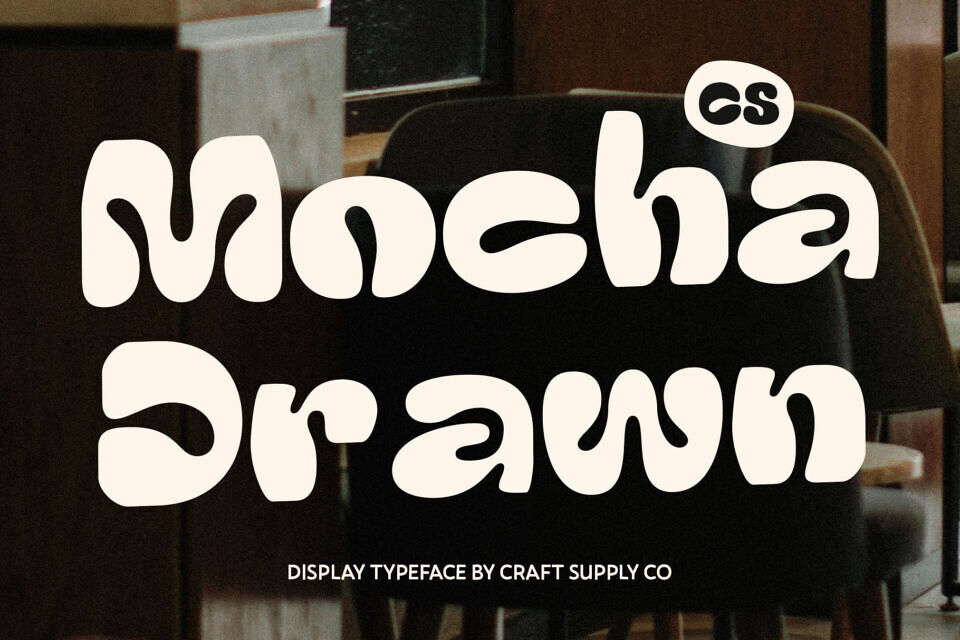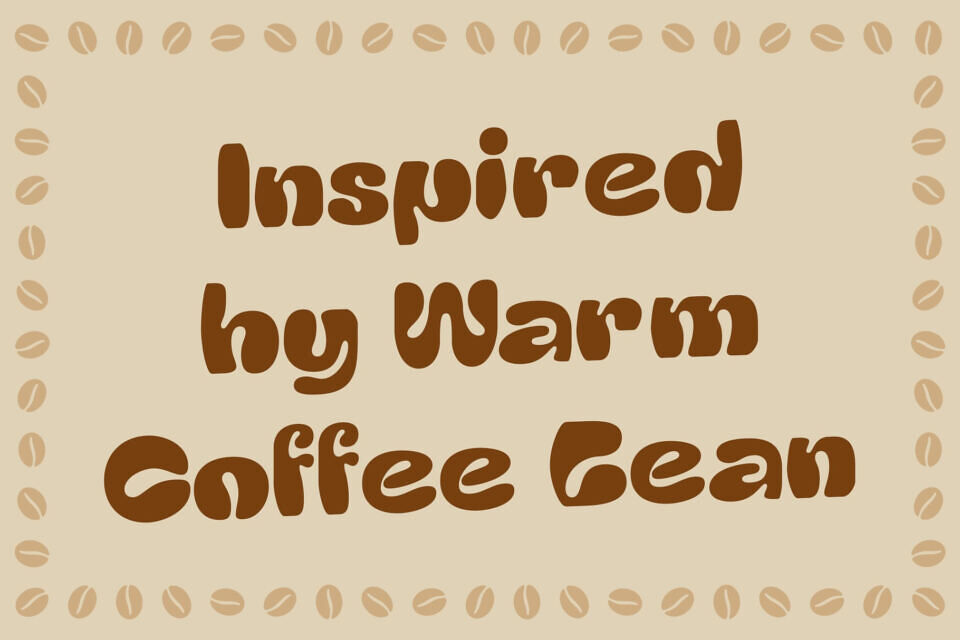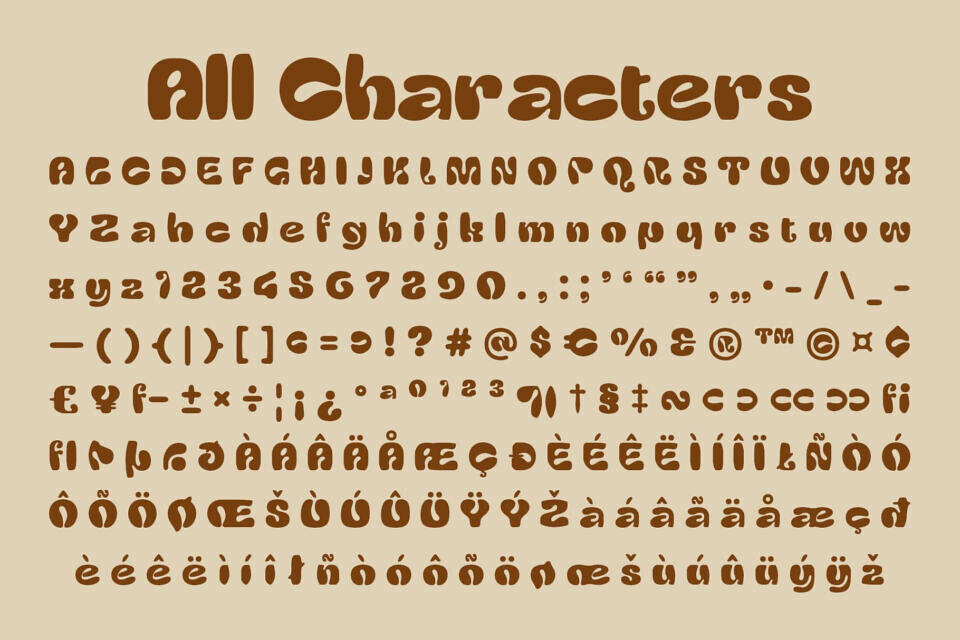
Cs Mocha Drawn Font
CS Mocha Drawn is a decorative display font designed with bold, rounded letterforms that resemble coffee beans. This creative touch gives the typeface a warm, fun, and quirky personality, instantly making it recognizable and full of character. Its chunky style makes text appear lively and dynamic, while maintaining a bold visual presence.
With its playful design, this energetic and bold font is an excellent choice for projects that want to feel cheerful, energetic, and unique. It works beautifully for creative branding, coffee-themed packaging, posters, or any visual project where you want to capture joy, warmth, and originality.